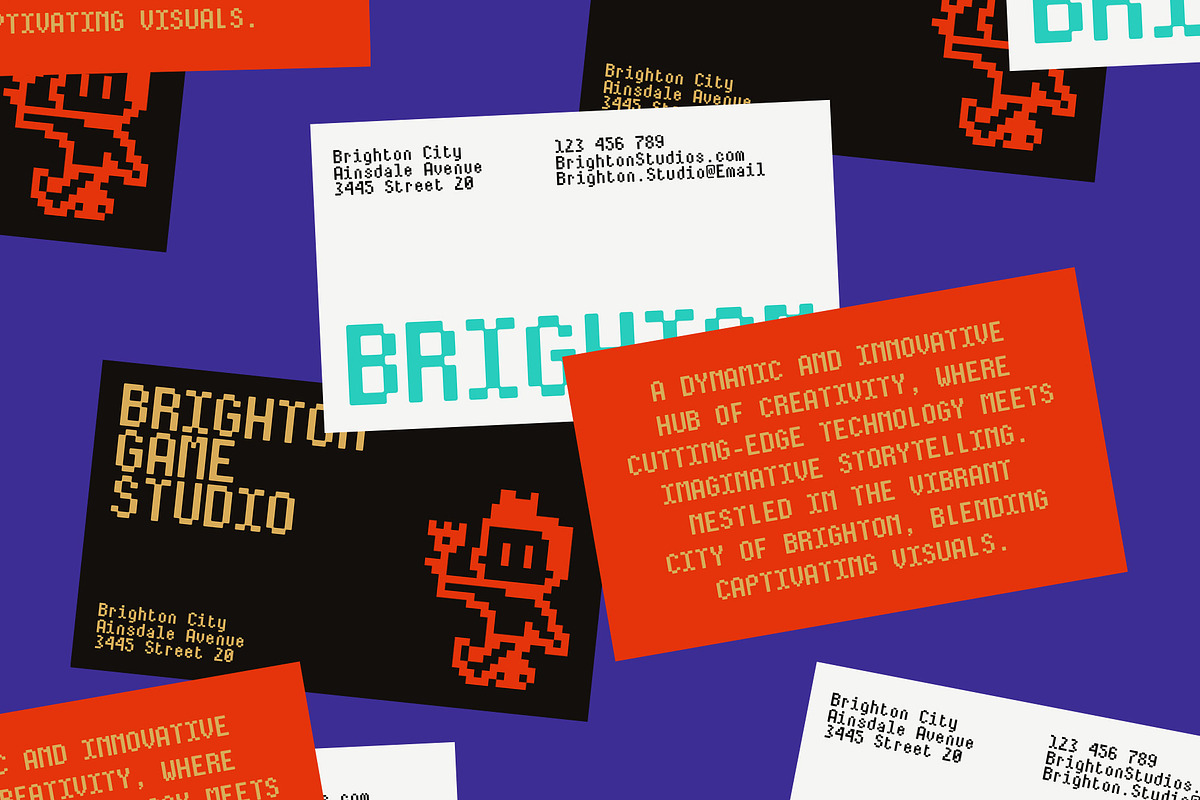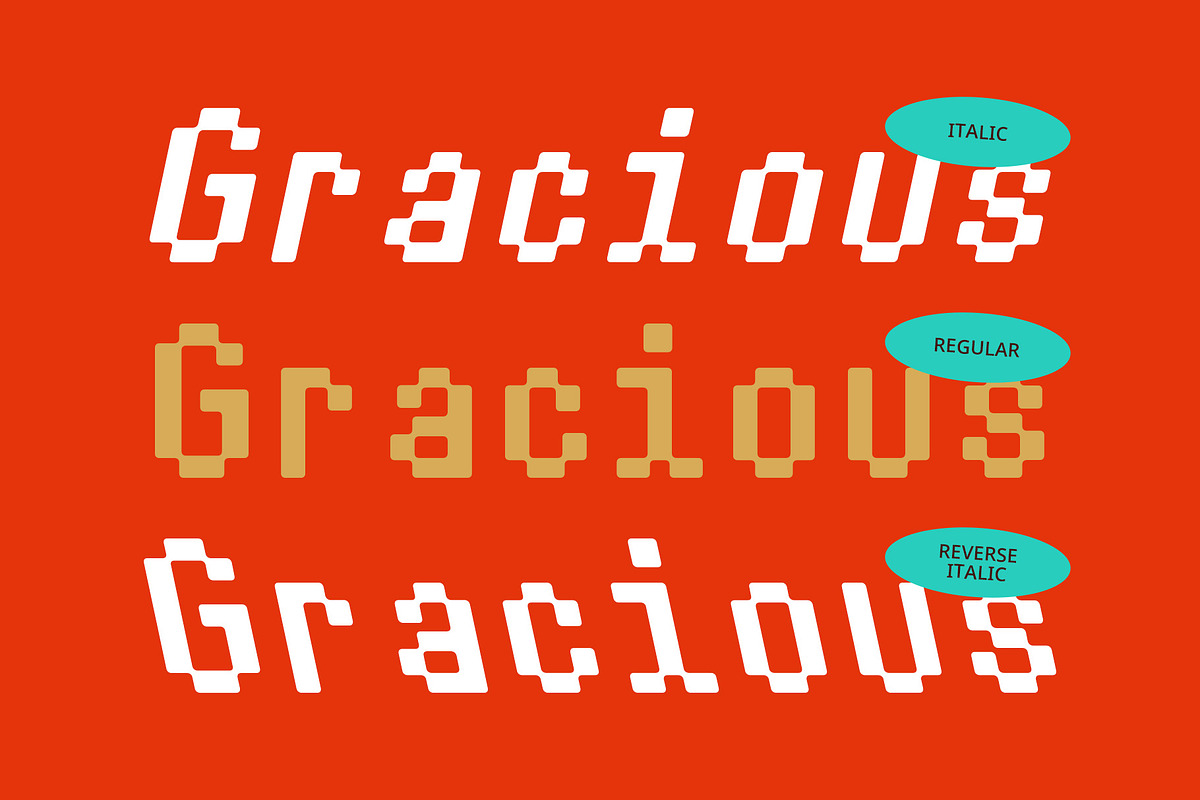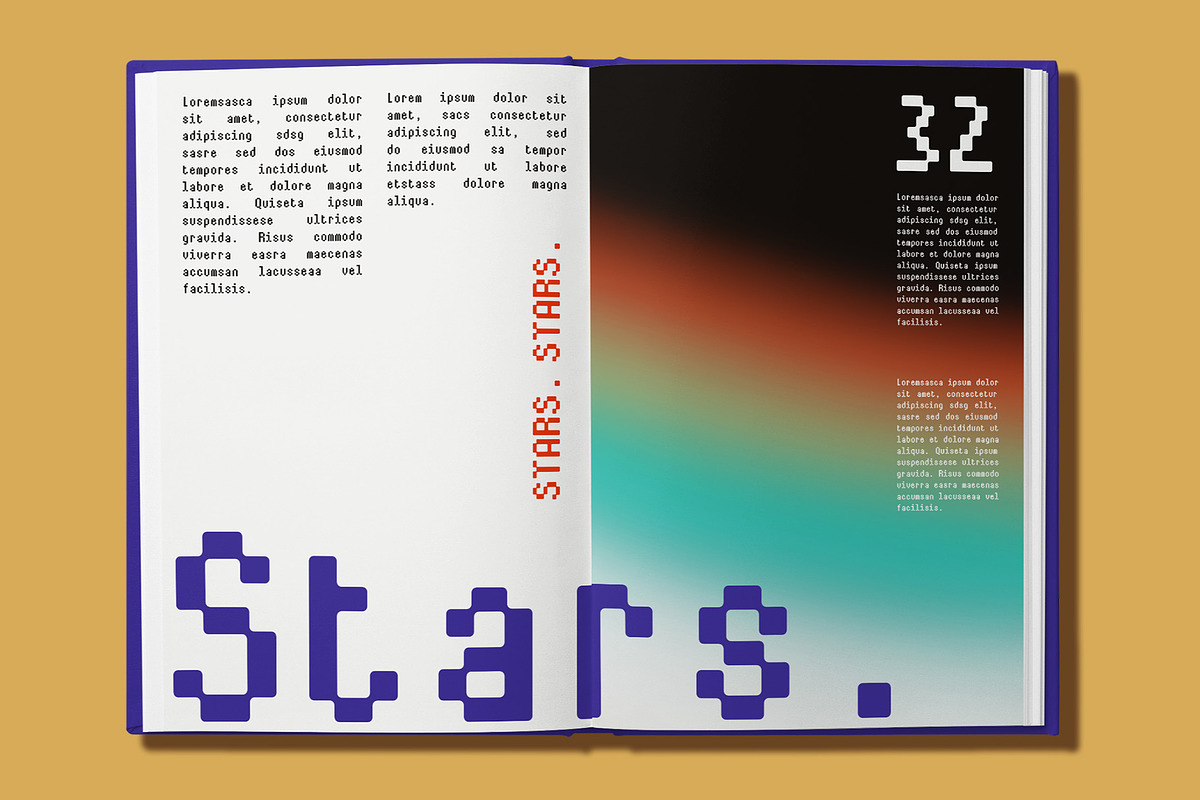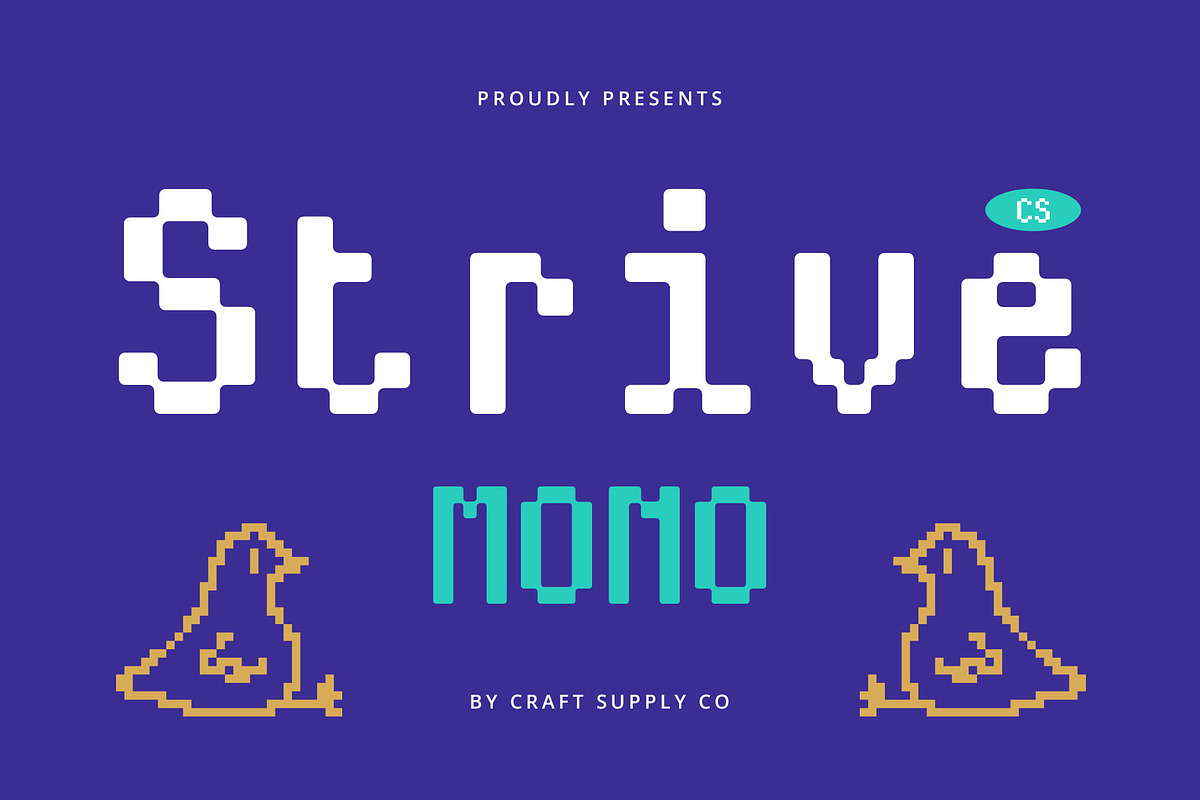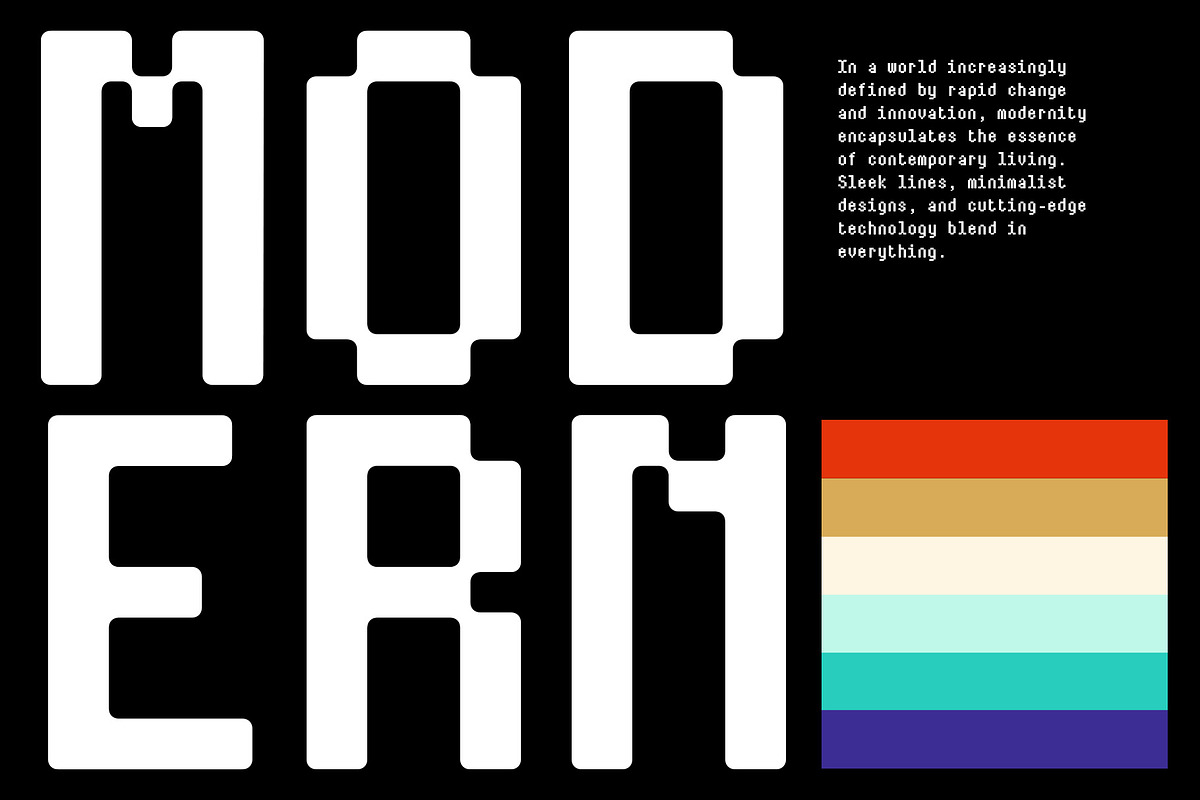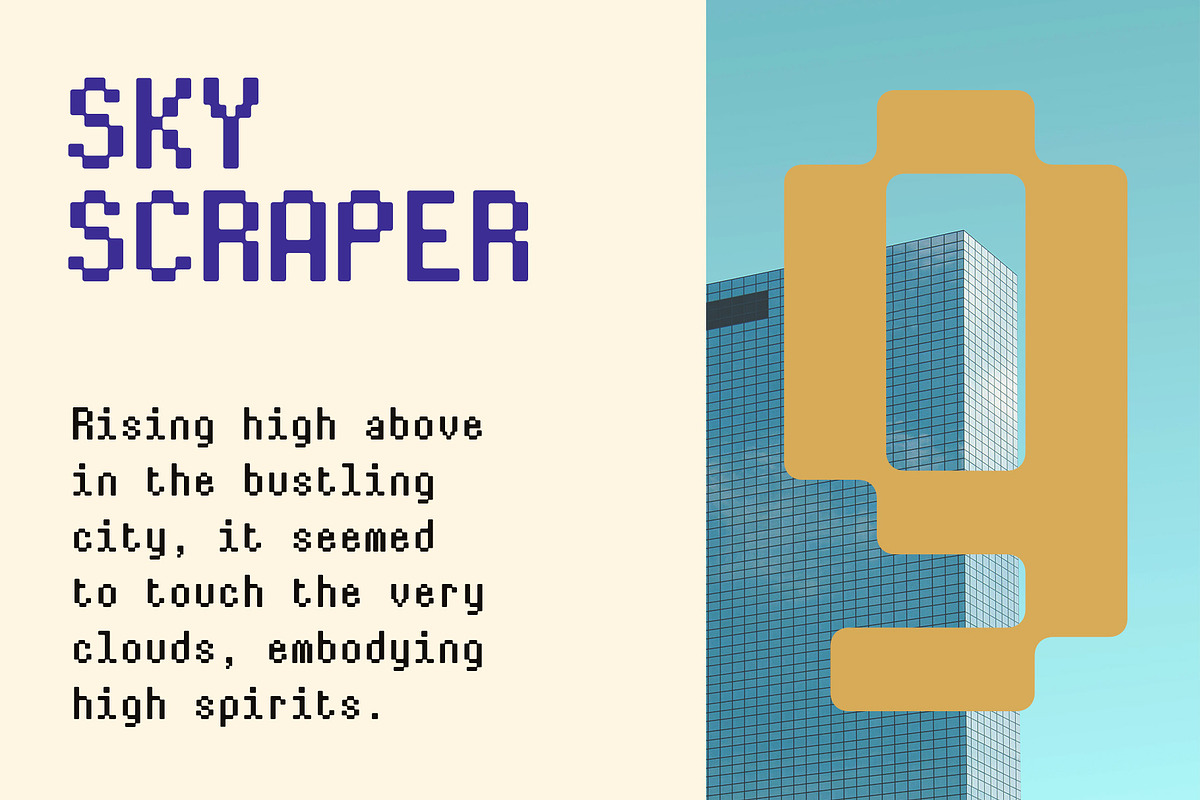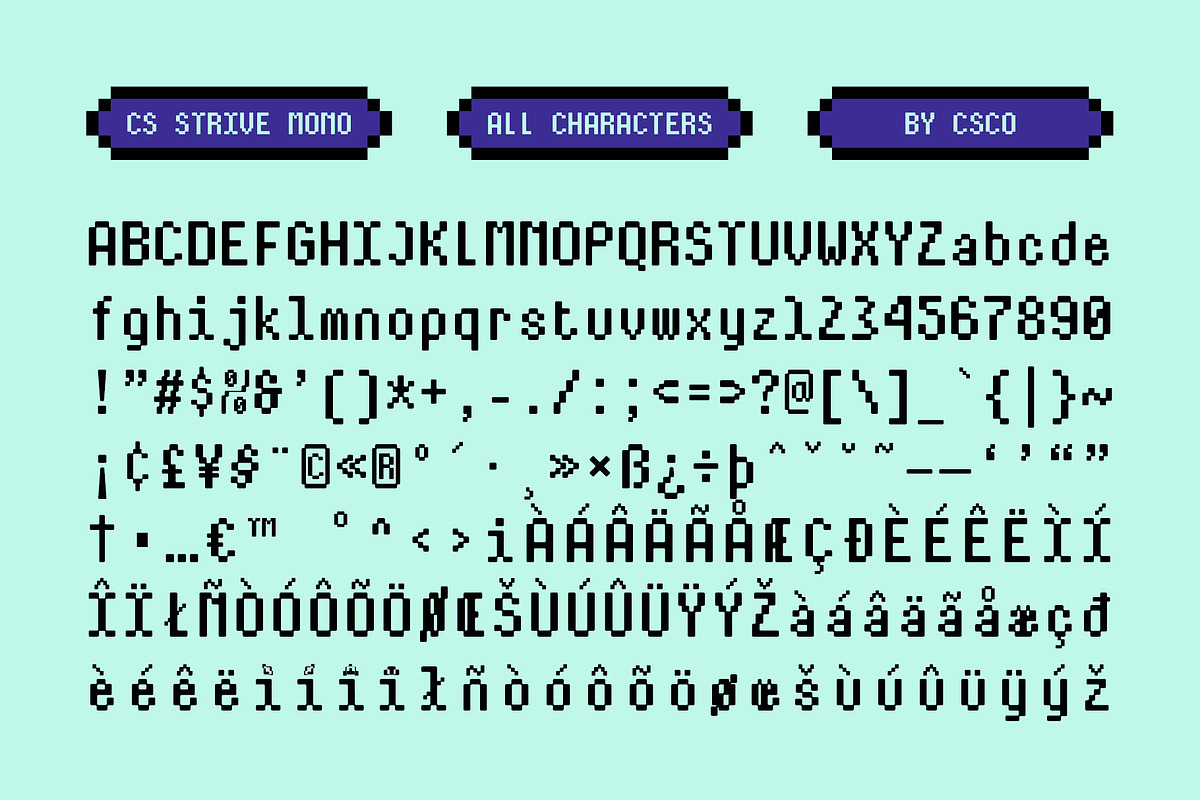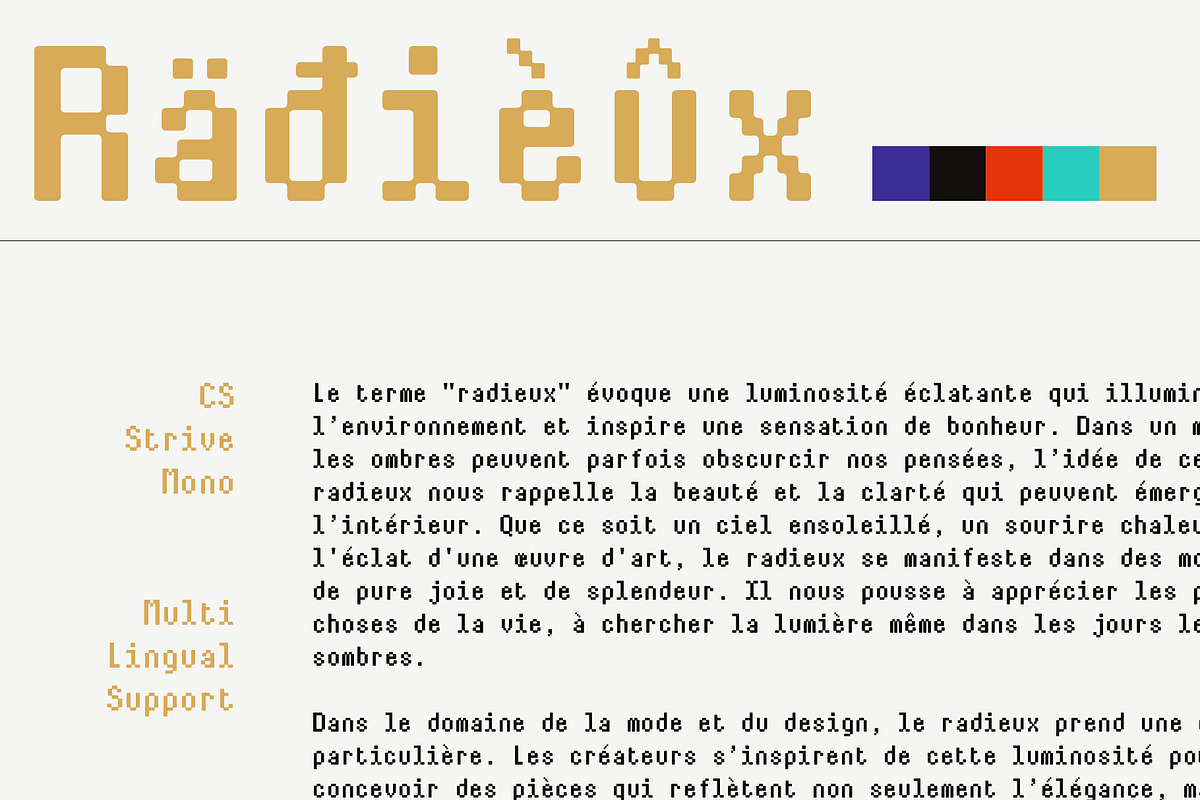
CS Strive Mono – Monospaced Font
CS Strive Mono – A Monospaced Font
Nostalgic 90s Pixel Aesthetics CS Strive Mono is a monospaced display font that captures the essence of 90s digital culture, bringing a delightful nostalgic vibe to your designs. With its pixel style and unique characteristics, this font is reminiscent of classic video games and early computer interfaces, making it a perfect choice for projects that seek to evoke fond memories of a vibrant digital era.
Playful and Boxy Letterforms The design features boxy letters that exude a funky and cheerful feel, each character imbued with a sense of personality and charm. This playful approach is enhanced by the font’s ability to accommodate bright colors and engaging details, creating an energetic visual experience. The monospaced structure ensures that each letter occupies the same amount of horizontal space, providing a clean and organized appearance that is both functional and stylish.
Ideal for Creative Projects CS Strive Mono is exceptionally versatile, making it ideal for a variety of design projects. Whether you’re creating event posters, branding materials, or eye-catching graphic designs, this font effortlessly captures attention with its character-filled style. Its unique aesthetic is perfect for targeting audiences looking for an engaging and playful approach, making it an excellent choice for creative endeavors in the entertainment, gaming, and tech industries.